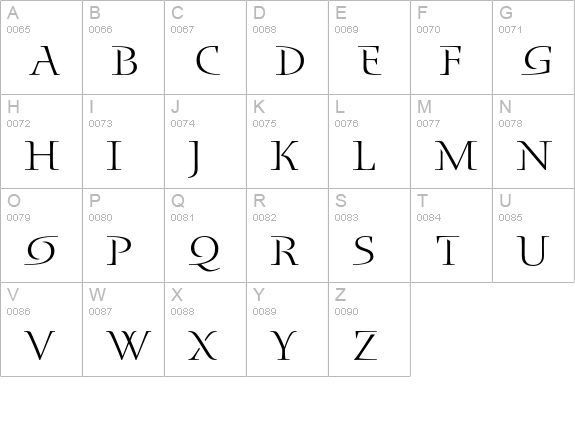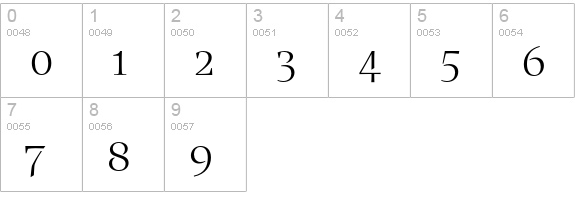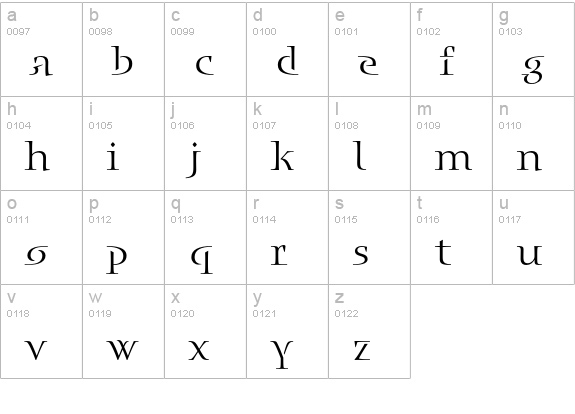
Blue Island Std Font Details
Blue Island Std is a modern and stylish font that exudes sophistication and elegance. With its clean lines and sleek design, this typeface is perfect for a wide range of design projects, from branding to advertising. The versatility of Blue Island Std makes it a go-to choice for designers looking to make a statement. The best part? Blue Island Std is available for free download at FontsMarket.com. Whether you're working on a professional project or a personal endeavor, this font is sure to elevate your design to the next level. Don't miss out on the opportunity to add Blue Island Std to your font collection today!